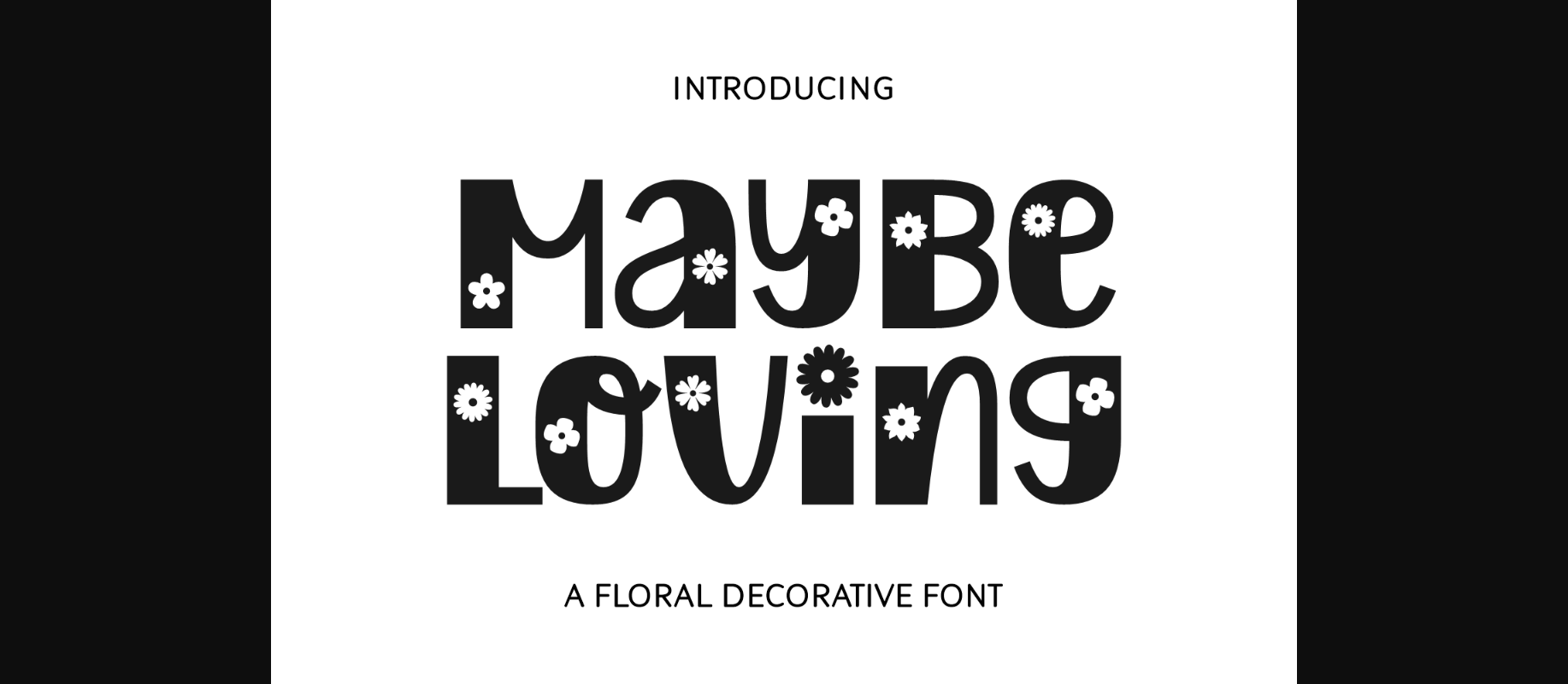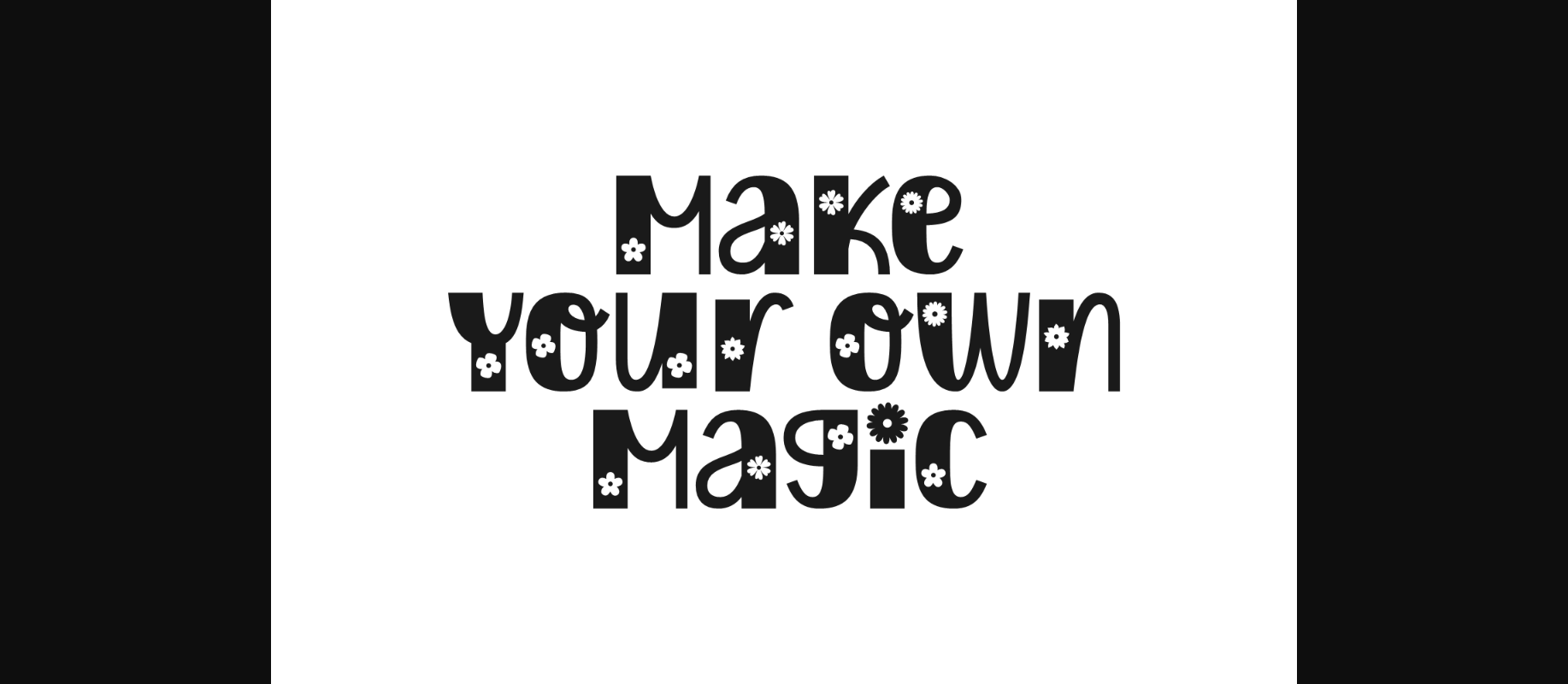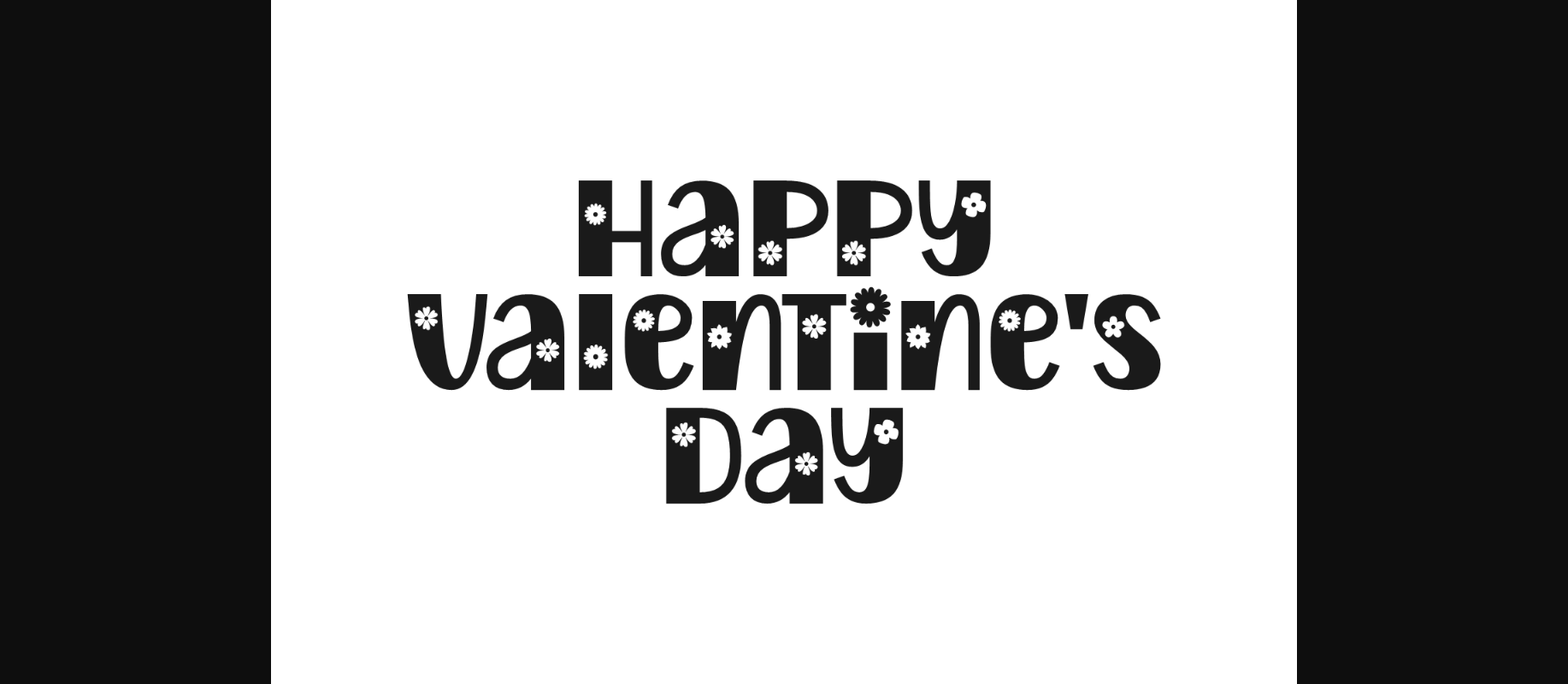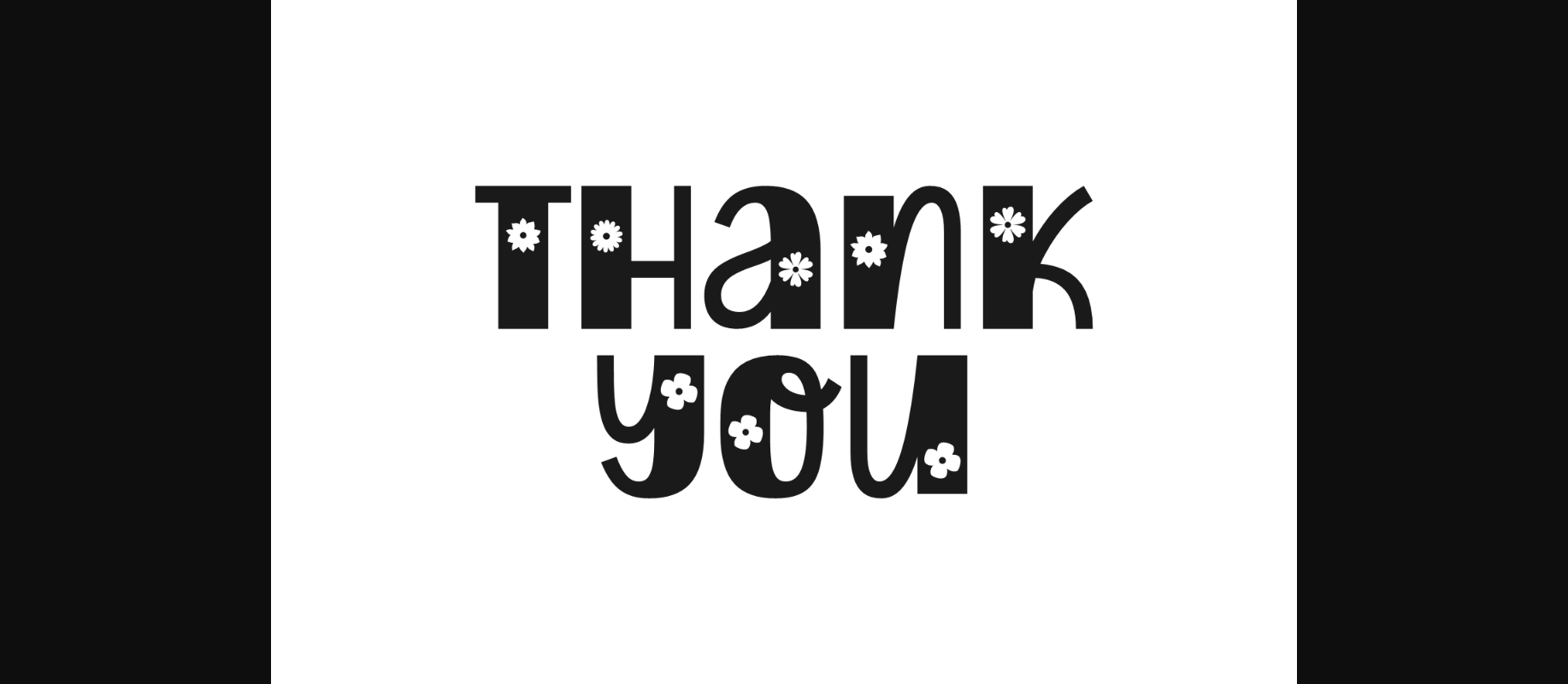
Maybe Loving Font
About Maybe Loving Font
Maybe Loving is a floral decorative font that blooms with simplicity and sweetness. Its charming design features delicate floral elements, adding a touch of nature to your text. Perfect for projects that radiate love and warmth, Maybe Loving brings a soft and inviting feel to your designs. Whether it’s invitations, greeting cards, or any creative endeavor, this font adds a hint of floral elegance, making your text as lovely as a garden in bloom.